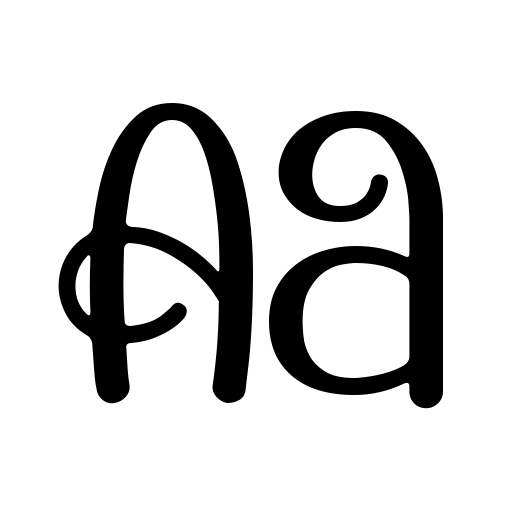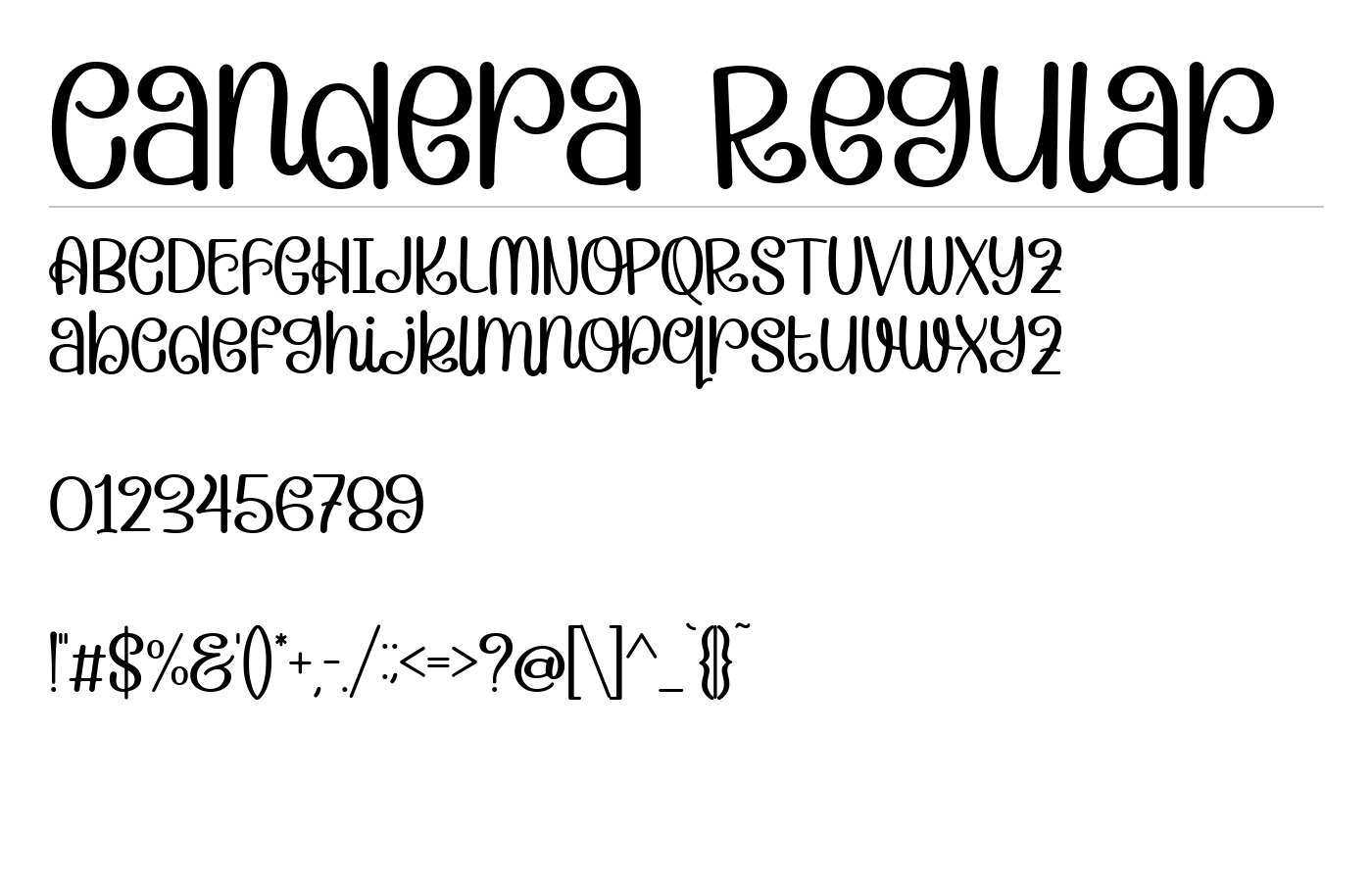
Candera is a playful and whimsical sans serif font characterized by its tall, narrow letterforms and unique curly flourishes on many characters, giving it a quirky, hand-drawn feel. Its lively, uneven strokes and decorative details make it ideal for creative, informal uses such as children's books, playful branding, and eye-catching headlines where a fun and approachable personality is desired.
Candera Font
About Candera Font
| Designer | Azzam Ridhamalik |